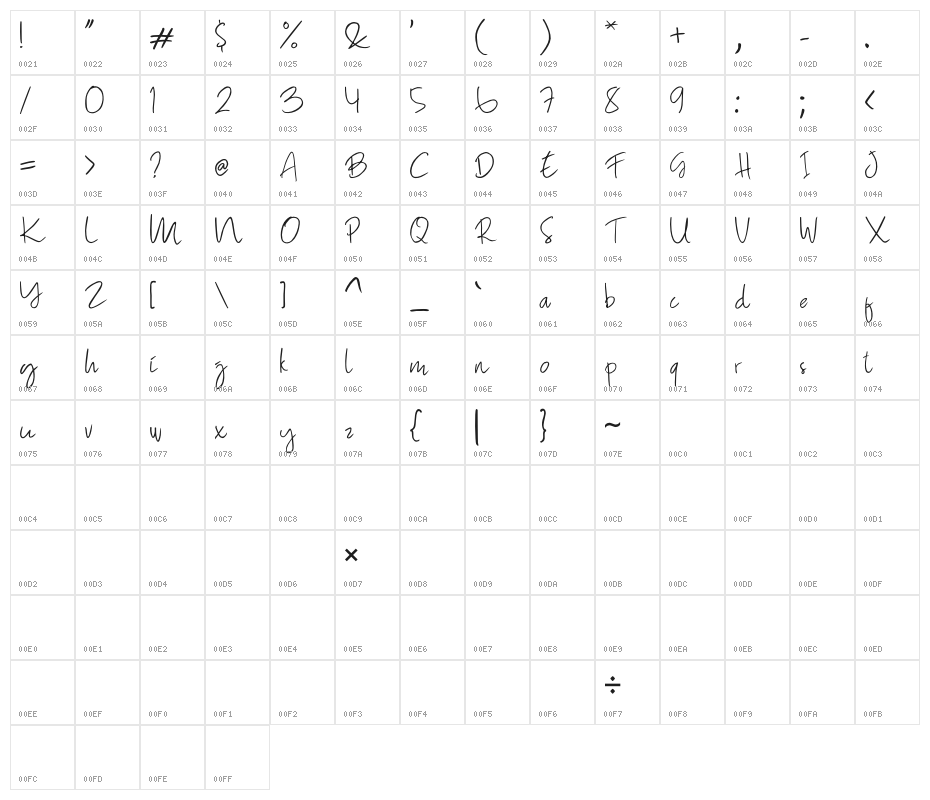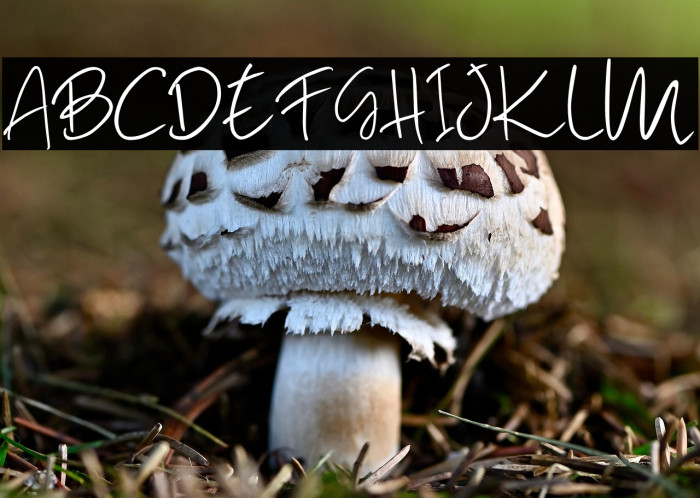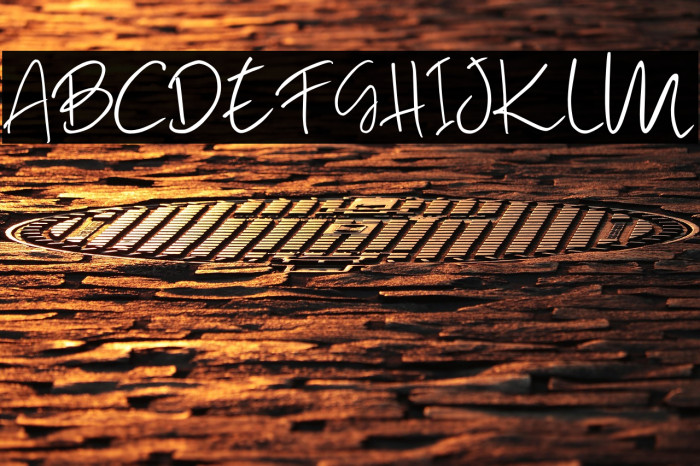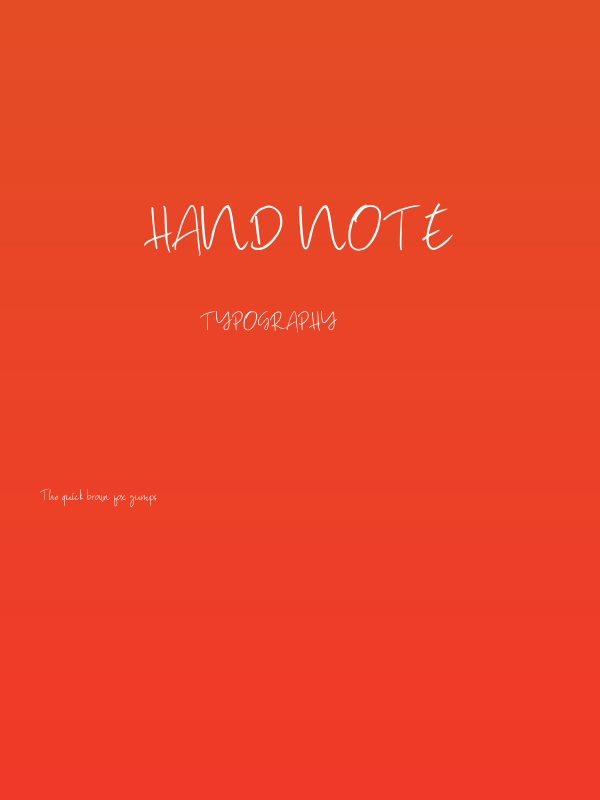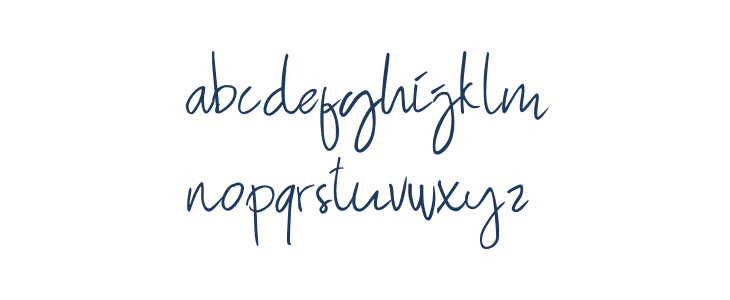
Hand note Font
Hand note Description
This font exudes a casual, handwritten style that mimics the fluidity and spontaneity of natural handwriting. The characters are slightly slanted, with a playful and informal appearance. The strokes vary in thickness, adding a dynamic and lively feel to the text. The uppercase letters are bold and prominent, while the lowercase letters maintain a consistent flow, enhancing readability. The numerals and special characters are crafted with the same whimsical touch, making them blend seamlessly with the alphabet. This font is perfect for projects that require a personal, human touch, such as invitations, greeting cards, or creative branding.
| Overall Style | Casual, Playful |
| Use Case | Headlines, Logos, Creative projects |
| Proposed Projects | Ideal for invitations, greeting cards, personal branding, and creative projects. |